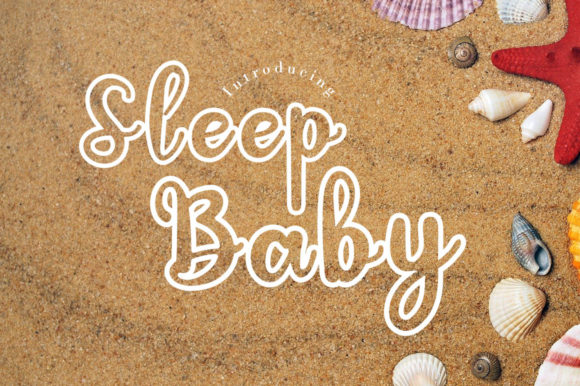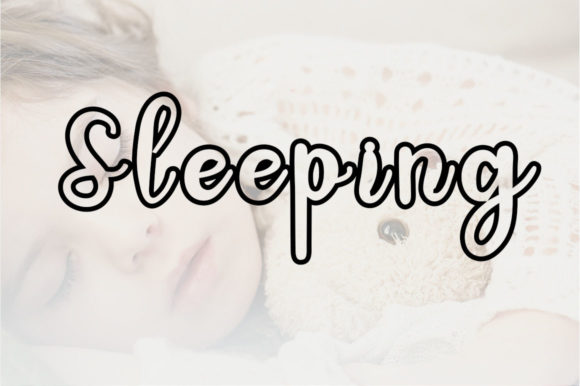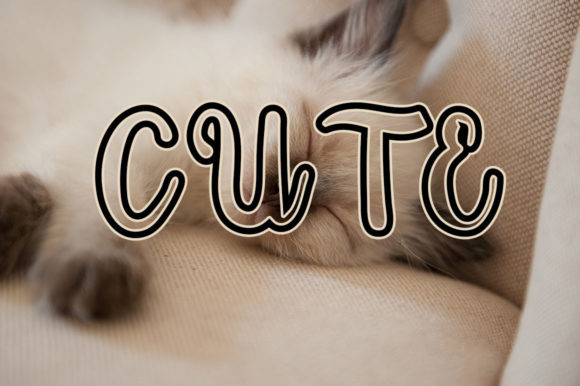
Sleep Baby Font
Introducing “Sleep Baby,” a dainty and genuine handwritten font that exudes a cute and whimsical charm. This font features delicate outlines that give it a unique and playful appearance, perfect for adding a touch of joy and romance to your design projects.
With its whimsical style and genuine character, Sleep Baby is an ideal choice for a variety of design ideas. From children’s books and nursery decorations to greeting cards, social media posts, and more, this font will bring a delightful and enchanting vibe to your creations.
The outlined nature of the font adds an extra level of visual interest and allows for creative possibilities. You can experiment with different color combinations, patterns, or even fill in the outlines with custom textures or illustrations to further enhance the whimsical feel of your designs.
Sleep Baby’s charming and genuine appeal makes it particularly well-suited for projects related to children or anything that requires a touch of innocence and playfulness. It can also be used to create lovely logos, branding materials, and product packaging, adding a joyful and romantic touch to your brand identity.
The versatility of Sleep Baby extends to various design mediums, whether digital or print. It is legible and easily readable, ensuring that your messages come across clearly. The font’s whimsical outlines and delicate forms make it captivating and eye-catching, drawing attention to your designs in a charming and delightful way.
In summary, Sleep Baby is a dainty and genuine handwritten font that brings a cute and whimsical charm to your design projects. With its outlined style, it offers a unique and playful touch that can add joy and romance to various design ideas. Whether you’re creating children’s books, greeting cards, or branding materials, Sleep Baby will infuse your projects with a delightful and enchanting vibe.